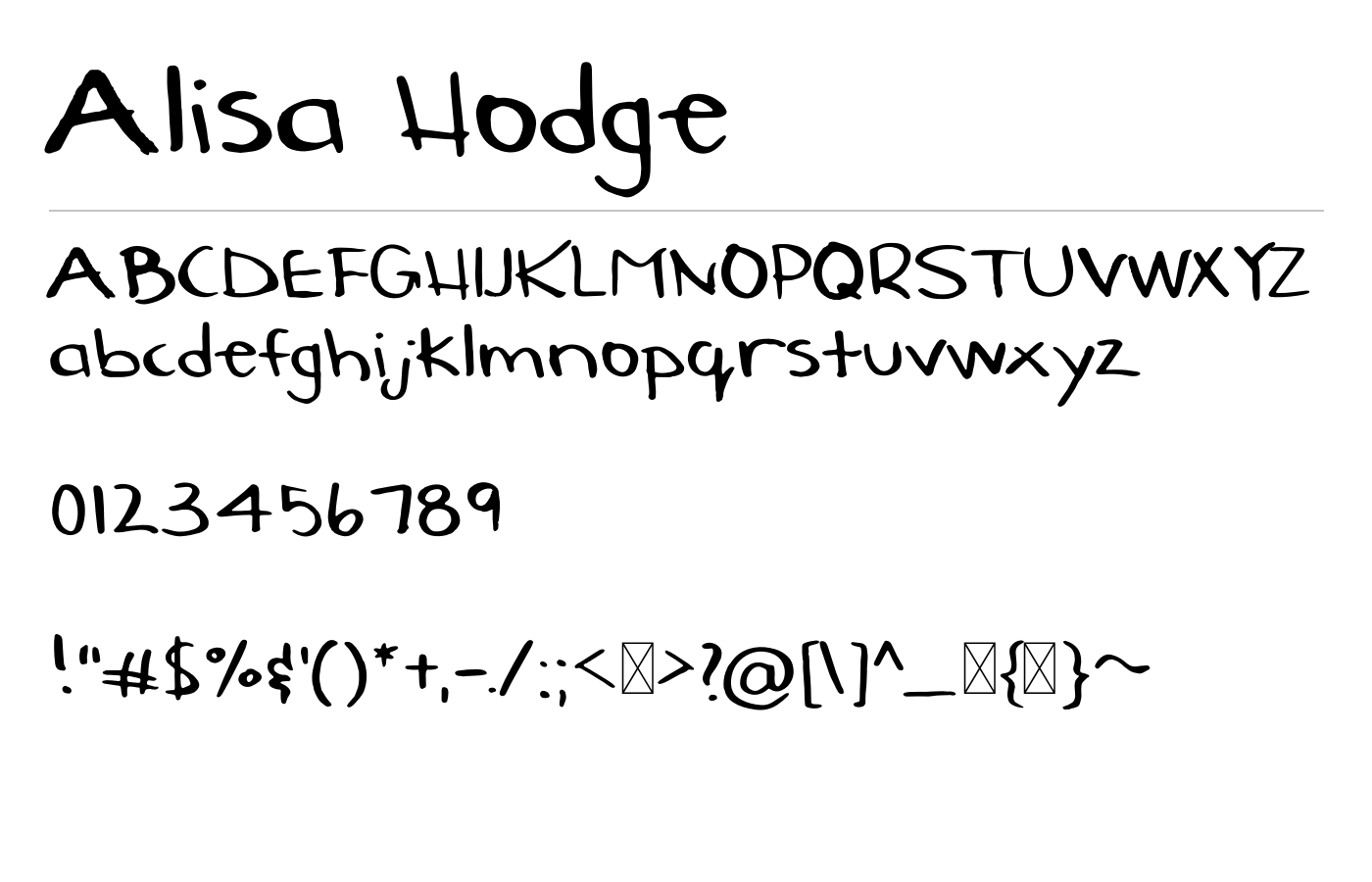
Alisa Hodge is a playful, handwritten sans serif font with a casual and friendly vibe. Its uneven strokes and quirky letterforms create an informal and approachable feel, making it ideal for personal projects, children’s materials, or creative branding that wants to appear warm and inviting. This font works best in headlines, invitations, and packaging where a touch of personality and charm is desired.
Alisa Hodge Font
About Alisa Hodge Font